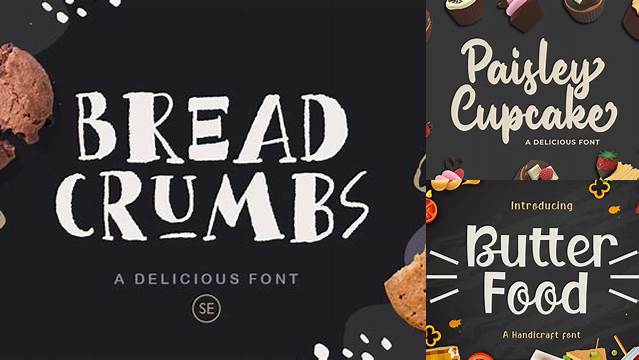
Food Fonts: Your Guide To Delicious Typography
Introduction: Savoring the Art of Food Fonts
Hey food lovers and design enthusiasts, ever stopped to think about how the fonts used on menus, food packaging, or even social media posts can make your mouth water? Well, today we're diving headfirst into the delectable world of food fonts. It's all about how typography plays a crucial role in the presentation and marketing of food, setting the tone, and influencing our perception of taste and quality. We'll explore everything from classic serif fonts that whisper elegance to playful, handwritten fonts that scream fun. Whether you're a budding chef, a restaurant owner, a graphic designer, or just someone who appreciates a well-designed menu, this guide is for you.
The goal is to equip you with the knowledge to choose the perfect font for any food-related project. Typography isn't just about picking pretty letters; it's a powerful communication tool. It can evoke emotions, build brand identity, and ultimately, entice customers. Imagine a high-end restaurant using a sleek, modern font to convey sophistication versus a casual food truck opting for a quirky, bold font to project a sense of fun and approachability. The choice of font can significantly impact the customer's impression and their overall experience. This guide will help you navigate the diverse landscape of food fonts, explore their characteristics, and provide some essential tips for selecting the best ones for your needs. Get ready to feast your eyes on some of the most appealing and effective fonts in the food industry! So, let's get started and uncover how typography can enhance your food-related endeavors.
Understanding the basics of font families and their individual traits is important. Serif fonts, such as Times New Roman, have small strokes (serifs) at the ends of the letters and often evoke a sense of tradition, elegance, and trustworthiness. They're a great fit for brands that aim for a classic or refined aesthetic. Sans-serif fonts, like Arial or Helvetica, lack these strokes and typically convey a more modern, clean, and minimalist feel. They work well for businesses that want to appear contemporary and approachable. Script fonts mimic handwriting and can inject personality, creativity, and a touch of playfulness into a design. They're perfect for brands looking to express warmth and individuality. Display fonts, on the other hand, are designed for larger sizes, such as headlines or titles, and often have unique and eye-catching designs. They can be used to create a bold statement and capture attention. Moreover, the weight (e.g., light, regular, bold) and style (e.g., italic) of a font play a crucial role. Bold fonts grab attention, while lighter weights may appear more delicate. Italic fonts can add a touch of flair, emphasizing certain words or phrases.
So, why does all this matter? The right food font can work wonders for your brand. It communicates the essence of your business, builds brand recognition, and leaves a lasting impression on your customers. It's about creating a visual experience that aligns with your values and the message you want to convey. Whether you're crafting a menu for your restaurant, designing packaging for your food products, or creating social media content to showcase your culinary creations, the font you select can make or break the overall impact. It's about understanding the psychology behind the design and using it to your advantage. For example, a font that looks like a vintage sign might resonate with a restaurant serving classic dishes, while a modern sans-serif font could work perfectly for a trendy, health-conscious eatery. It's a fascinating fusion of art and marketing. Get ready to explore the different font styles and find out which ones will make your food-related projects stand out.
Classic & Elegant Food Fonts: Timeless Typography
Let's kick things off with some timeless choices. Classic and elegant food fonts are often preferred for brands that want to convey sophistication, tradition, and quality. These fonts evoke a sense of trust and can be a great fit for restaurants, cafes, and food brands that focus on high-end products or experiences. These fonts have the power to create an immediate impression of refinement. Here are some key characteristics and examples:
Serif Fonts: As mentioned earlier, serif fonts are the champions of elegance. They have those little strokes at the end of letters that lend a classic and sophisticated feel. Think of them as the black tie of the typography world. Popular choices include:
- Times New Roman: A classic and reliable choice, often used for its readability. It's like the little black dress of fonts – always appropriate.
- Garamond: Known for its graceful and beautiful letterforms, Garamond conveys a sense of tradition and elegance, commonly used in the high-end culinary industry.
- Baskerville: Another excellent option for its refined appearance, Baskerville creates a sense of authority and sophistication, perfect for menus and branding materials.
Use Cases for Classic Fonts: These fonts are perfect for branding projects that aim to project timelessness, such as fine-dining restaurants, gourmet food products, and luxury cafes. They are often used in menus, packaging, and marketing materials to convey a premium image. Picture a restaurant offering a tasting menu; a classic serif font can beautifully complement the presentation. The goal is to create an immersive experience.
Tips for Using Classic Fonts: When using classic fonts, consider pairing them with elegant imagery and a simple color palette to avoid overwhelming the viewer. Keep the design clean and uncluttered, and make sure that the font is easily readable, especially in print materials. A refined layout will create a harmonious and appealing final product. It's all about balance and creating a cohesive look that speaks to quality and attention to detail. Ensure a great layout to make the typography the star of the show. Avoid using too many different font styles, as it can dilute the message. Let simplicity guide you!
Classic fonts offer a sense of heritage and expertise. Using them correctly ensures that you're conveying a brand message of quality, history, and luxury. They are the foundation for creating an image that resonates with customers who value tradition and timelessness. They're not just about the words; they're about what those words represent.
Playful & Fun Food Fonts: Adding a Dash of Personality
Now, let's switch gears and talk about the fonts that bring the fun! Playful and fun food fonts inject personality and enthusiasm into any design, making them a perfect match for brands that want to seem approachable, quirky, and exciting. These fonts are all about capturing attention and creating a memorable visual experience. They have the ability to evoke a sense of delight, making the audience feel happy and eager to try something new. It's like setting the table for an unforgettable feast.
Characteristics of Playful Fonts: These fonts tend to be bolder, less formal, and often feature unique shapes, hand-drawn styles, or interesting details. The goal is to stand out and create a visually stimulating experience. They may be a bit more casual and less structured, allowing them to appear less intimidating.
Examples of Playful Fonts: Here are some popular font choices in this category:
- Handwritten Fonts: These fonts look like they've been written by hand, giving a friendly and personal touch. Great for food trucks, cafes, and brands that want to seem welcoming. A few examples are: Brush Script MT and Lobster. They work very well for logos, headlines, and social media. The idea is to make the brand feel human and relatable.
- Whimsical Fonts: Often colorful and with unique designs, these fonts add a touch of fantasy and fun. Great for kid-friendly products, bakeries, and brands that want to be seen as joyful. Think about using them in branding materials. Examples: Comic Sans and Chalkboard. Remember that with great power comes great responsibility; use these fonts carefully to avoid looking unprofessional.
Use Cases for Playful Fonts: Think of food trucks, ice cream shops, bakeries, and brands targeting a younger audience. These fonts are perfect for menus, social media posts, packaging, and other marketing materials. Use these fonts when you want your brand to be perceived as lively, energetic, and engaging.
Tips for Using Playful Fonts: When using playful fonts, make sure they are still readable, especially in smaller sizes. Balance the playful font with a simpler, more neutral font for body text to prevent the design from becoming overwhelming. Embrace your brand's personality and let it shine through your font choices. Consider color psychology: bright, vibrant colors can enhance the playful vibe. It's about creating a visual experience that encourages engagement and interaction. Try experimenting with different font pairings to create contrast. Always remember to balance boldness with clarity. Always seek to create a design that is both aesthetically pleasing and easy to understand. The goal is to offer a memorable, fun visual experience.
So, embrace the fun and let your brand's personality shine with fonts that convey joy and make people smile. It's about creating a memorable visual experience.
Modern & Minimalist Food Fonts: Sleek and Stylish
Let's now look at the fonts that are all about simplicity and a clean aesthetic. Modern and minimalist food fonts are perfect for businesses that want to convey a sense of sophistication, innovation, and a contemporary feel. The goal is to create a design that is clean, simple, and effective, and these fonts are the go-to choice for brands seeking a sleek, stylish look. These fonts focus on clarity and elegance by utilizing a clean design.
Characteristics of Modern Fonts: These fonts are characterized by clean lines, geometric shapes, and a focus on readability. They often feature a minimalistic design and avoid unnecessary embellishments. They are usually sans-serif fonts that exude a sense of modernity and refinement. A good modern font should be straightforward and professional.
Examples of Modern Fonts: Some popular font choices include:
- Helvetica: A classic choice, known for its clean and neutral appearance, it's great for almost anything, as the font is incredibly versatile. This font is used widely across the board.
- Futura: With its geometric design, Futura creates a sense of forward-thinking and modernity, making it a solid choice for packaging and branding. The font's simplicity allows the brand's message to take center stage.
- Montserrat: This is a versatile sans-serif font that is great for headlines and body text alike, thanks to its clear and readable design. It can work well for many types of brands.
Use Cases for Modern Fonts: Ideal for restaurants, cafes, and food brands that are aiming for a sophisticated and contemporary image. Often found in websites, menus, and packaging, these fonts help businesses communicate a clear message.
Tips for Using Modern Fonts: Keep the design clean and uncluttered. Use a limited color palette and plenty of white space to emphasize the font and ensure readability. Make the design simple. Focus on a high-quality image and design layout. Aim to create a cohesive look that speaks to the brand's values, such as innovation and quality. Avoid adding excessive ornamentation or visual clutter that could distract from the message. The power of the modern design is in its ability to communicate effectively with the consumer.
Modern fonts provide a sense of clarity and sophistication. When used correctly, they can help your brand stand out from the crowd and convey a message of modernity and innovation. They are the tools needed to express your brand's values, making a strong impression on your customers.
Font Pairings: Harmonizing Typography
Choosing the right font is a crucial first step, but the true magic comes from pairing them harmoniously. Font pairings are all about finding two (or sometimes three) fonts that complement each other and work together to create a cohesive and visually appealing design. A good font pairing can enhance readability, add visual interest, and effectively communicate your brand's message. It's similar to pairing wine with food; the combination should improve the experience.
Why Font Pairings Matter: Effective font pairings create balance, contrast, and visual harmony. They enhance readability by distinguishing between different levels of information (e.g., headings, body text). It is important to have both the headline and the body text be readable. They add visual interest by providing contrast and visual appeal. Proper font pairings can create a professional and polished look, strengthening your brand identity. It's important to pick fonts that share some similar qualities so that they complement each other. This creates a sense of visual harmony that makes the design more pleasing.
Tips for Effective Font Pairings: The main rule is to pick fonts that complement and contrast each other. This means they shouldn't be too similar, which can create a confusing experience. Some examples of font pairings are:
- Pairing a Serif and a Sans-Serif: Combining a classic serif font (like Garamond) for headings with a clean sans-serif (like Helvetica) for body text is a great choice. It adds sophistication and readability.
- Pairing Different Weights: Using a bold version of a font for headlines and a regular weight for body text can create a balanced and appealing look. This technique works well with sans-serif fonts.
- Using Contrasting Styles: Combining a decorative font for headlines with a simple sans-serif for the body text can add visual interest, especially for brands that wish to express creativity.
- Consider Readability: Prioritize readability by ensuring that the body text is easy to read. Choose fonts with different features to make them clearly distinguished.
Tools and Resources: Many online tools and resources can help you explore font pairings. Use these tools to find combinations that suit your brand's style and audience. Explore Google Fonts. Check out websites like Fontpair or Typewolf for inspiration and pre-designed pairings.
Font pairings are a key ingredient to creating compelling designs that will capture your customer's attention. They're not only important for aesthetics but also for clarity. Experiment, test, and find what works best for your brand. The right combination of fonts can make a significant difference in the overall appeal and effectiveness of your designs. Happy pairing!
Font Licensing and Usage: Legal Considerations
Let's talk about the legal side of typography. Font licensing and usage may seem a bit dry, but it's essential to avoid legal issues and ensure you have the right to use your chosen fonts. This is more important than you might think. Ignorance is not a defense when it comes to copyright infringement. Making sure you have the correct licenses protects you and your business. This is an important aspect of your brand. Here's a breakdown of the key aspects to consider:
Understanding Font Licensing: Fonts are software. They are protected by copyright. Font licenses dictate how you can use a font. They are available for different purposes, such as personal or commercial use. There are two common types of licenses:
- Personal Use Licenses: Allow the use of a font for personal projects. Do not include commercial or business use.
- Commercial Use Licenses: Allow the font to be used for business projects. Commercial licenses often have different pricing structures. It's often based on the number of users or the number of times it will be used.
Key License Terms: It's important to understand these terms when you are getting a font license:
- Usage Rights: Specifies how you can use the font (e.g., print, web, apps). Print may have a certain price and restrictions. Websites often have different pricing options and licensing requirements.
- Number of Users: Some licenses limit the number of users who can install the font on their devices. Make sure that you're getting the correct number of user licenses.
- Embedding Rights: Determine whether you can embed the font in PDFs, websites, or other documents. Many licenses will specify restrictions on usage.
Where to Find Fonts: You have to use reputable sources to avoid copyright infringement. Some good places to find fonts include:
- Google Fonts: A free and open-source font library. Always good for personal use.
- Adobe Fonts: Available to Adobe Creative Cloud subscribers. Has some great fonts, but often needs a subscription.
- Font Shops: Places like MyFonts or Creative Market. A variety of fonts for purchase with commercial licenses.
Tips for Compliance: Always read the font license carefully to understand the terms of use. Keep records of your licenses and license agreements. When in doubt, seek legal advice from a lawyer with experience in IP. Do your own research; it's always good to know the law. The goal is to ensure you're using fonts legally and avoid legal issues. Ignoring the legal aspects of font usage can lead to serious consequences, including lawsuits and fines.
This is a necessary aspect to consider. Get familiar with the licensing requirements before you begin using any font. Stay informed and compliant. That way, you can focus on creating great designs without the legal risk.
Conclusion: Savor the Perfect Food Fonts
There you have it, folks! We've journeyed through the delicious world of food fonts, exploring everything from classic elegance to playful charm and sleek modernity. Choosing the right font is an essential ingredient in creating visually appealing and effective designs. These fonts play a crucial role in communicating your brand's identity, attracting customers, and conveying the essence of your food-related projects.
Here's a quick recap of our key takeaways:
- Choose the right fonts based on your brand's personality, target audience, and the message you want to convey.
- Pair fonts strategically to create a balanced and visually engaging design.
So, the next time you're designing a menu, a social media post, or a food product label, remember the power of typography. Let the right fonts add that final touch that transforms your creations into something unforgettable! And with that, go forth and create some delicious designs. Bon appétit, and happy designing!